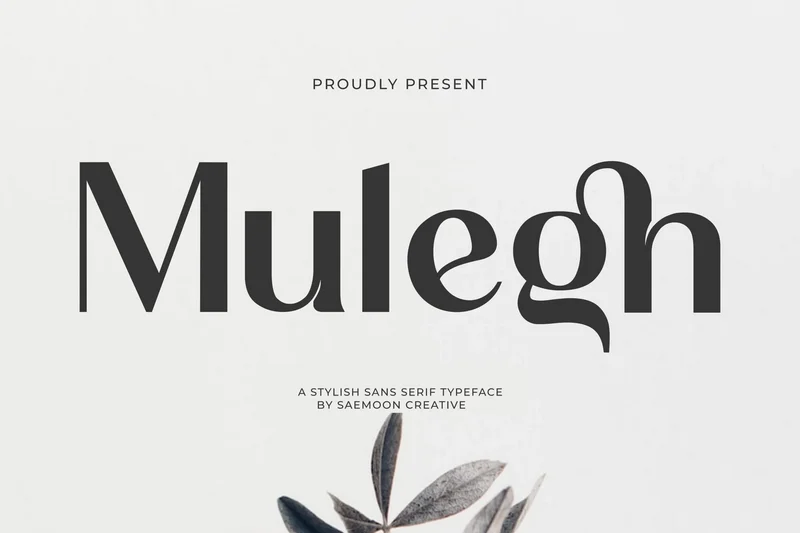
Mulegh
Mulegh is a modern sans-serif font that combines simplicity with luxury. Each letterform is carefully designed with distinctive details, giving your typography a clean yet stylish edge.
Equipped with alternates and ligatures, Mulegh offers creative flexibility for designing standout logos, brand identities, product packaging, web displays, and more. Its versatility makes it a perfect choice for projects that need both elegance and clarity.
Bring a refined and contemporary feel to your next design with Mulegh